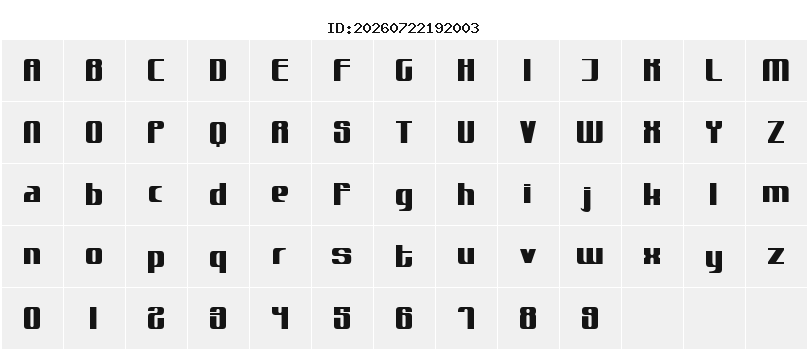
muttprutt Preview
• Font Name: muttprutt
• Full Font Name: muttprutt
• PostScript Name: Muttprutt
About muttprutt.ttf
muttprutt.ttf is a modern, elegant sans-serif font designed for ultimate readability and visual harmony. Perfect for branding, headlines, web design, and print materials.